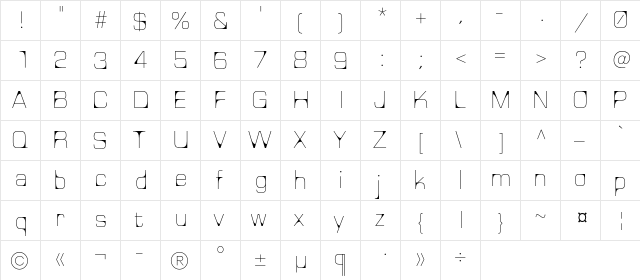
Nelma Regular
Design Context for Nelma Typeface
Nelma takes a measured approach to typography — its balanced proportions and neutral character make it a reliable workhorse for both digital and print work.